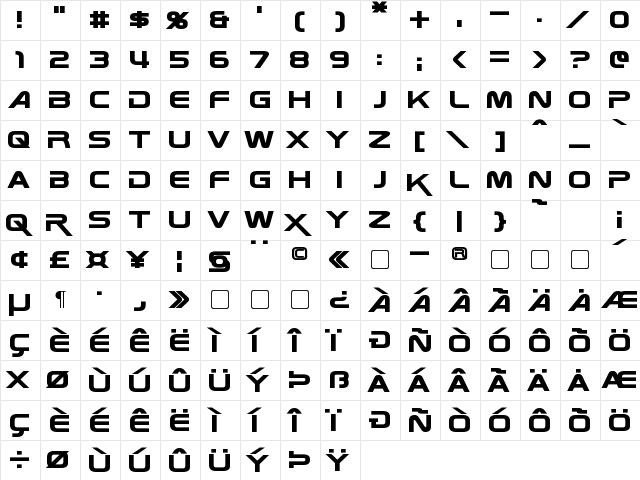
Zebulon Regular
| Foundry | Neale Davidson |
| Designer | Neale Davidson |
Design Context for Zebulon Typeface
Zebulon offers clean, dependable letterforms without strong stylistic allegiance, making it a practical choice for designers who need flexibility.